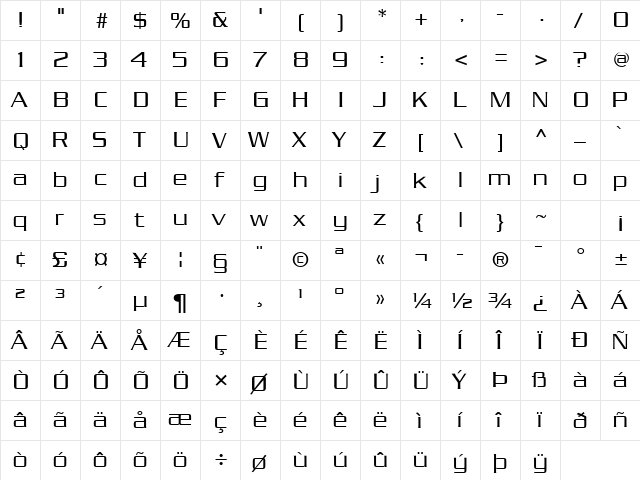
Chainlink Regular
Design Context for Chainlink Typeface
Chainlink offers clean, dependable letterforms without strong stylistic allegiance, making it a practical choice for designers who need flexibility.
Pro Tip: Pair Chainlink with a font of contrasting weight or personality to build a more expressive typographic hierarchy.